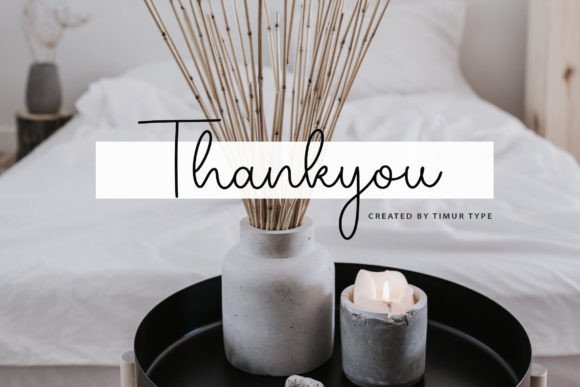
Natalia Signature Font
Natalia Signature is a stylish and exclusive font that radiates luxury and refinement. With its elegant curves, fluid lines, and intricate flourishes, this font is perfect for creating a high-end and upscale feel for your designs. Elevate your branding, invitations, and other projects with the exclusive and sophisticated vibe of this font.